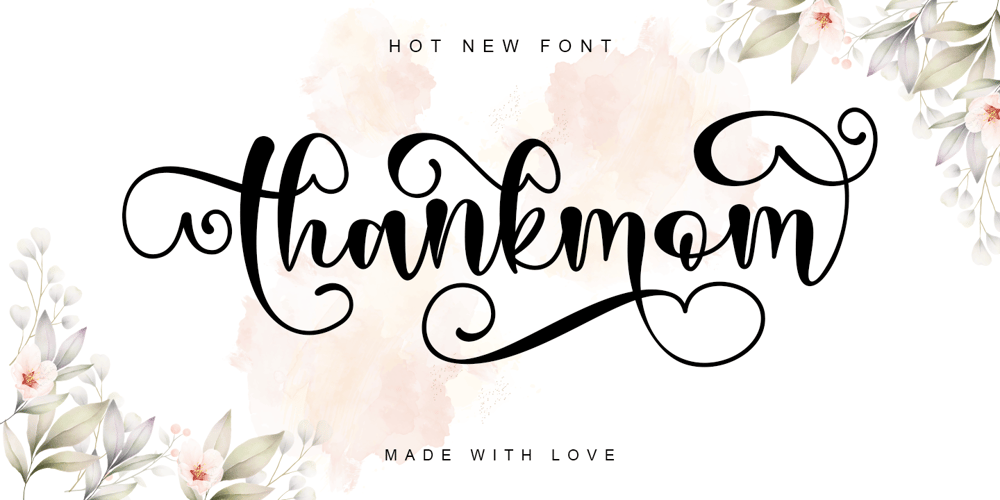
Thankmom Font Family was designed by Stefani Tri Rosa Setiati Christiana and published by Stefani Letter. Thankmom contains 2 styles and family package options. Thankmom is a stylish font that incredibly exudes elegance and class. Incredibly versatile, this font fits a wide pool of designs, elevating them to the highest levels. Thankmom comes with alternate, titling, swashes, and ligatures for fully customizable designs. This font is PUA encoded which means you can access all of the glyphs and swashes with ease!